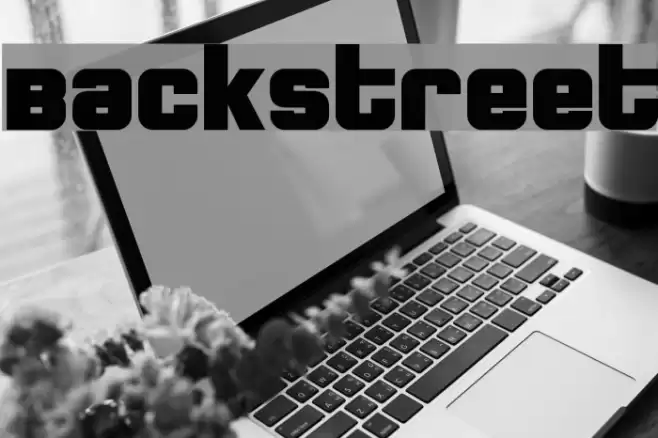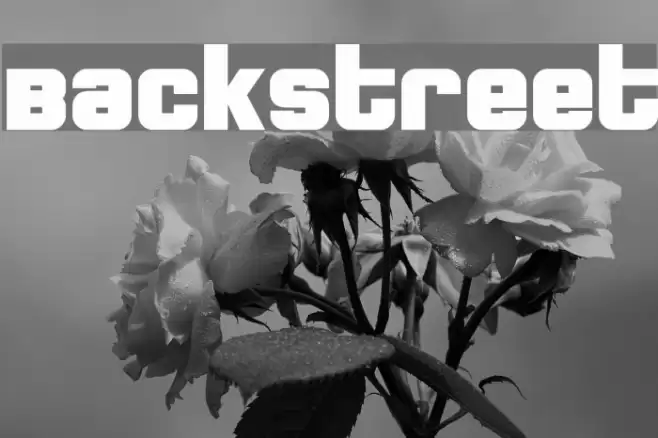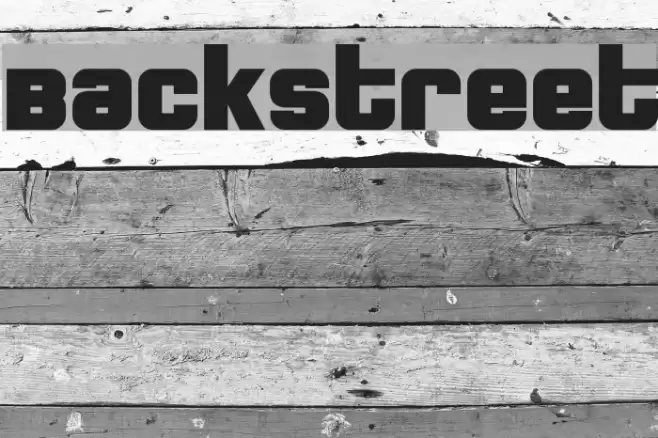
Backstreet Font
Backstreet Description
This font features a bold and impactful design with thick, uniform strokes that create a strong visual presence. The characters are blocky and geometric, with a modern and slightly futuristic aesthetic. The uppercase and lowercase letters maintain a consistent style, with rounded edges that soften the overall look. The numerals and special characters are equally bold, ensuring readability and emphasis. This font is ideal for making a statement in any design project, offering a balance between modernity and readability.
A bold, geometric font with a modern and impactful style from Uncategorized fonts.
- Proposed Projects: Ideal for branding, posters, headlines, and any project requiring a strong visual impact.